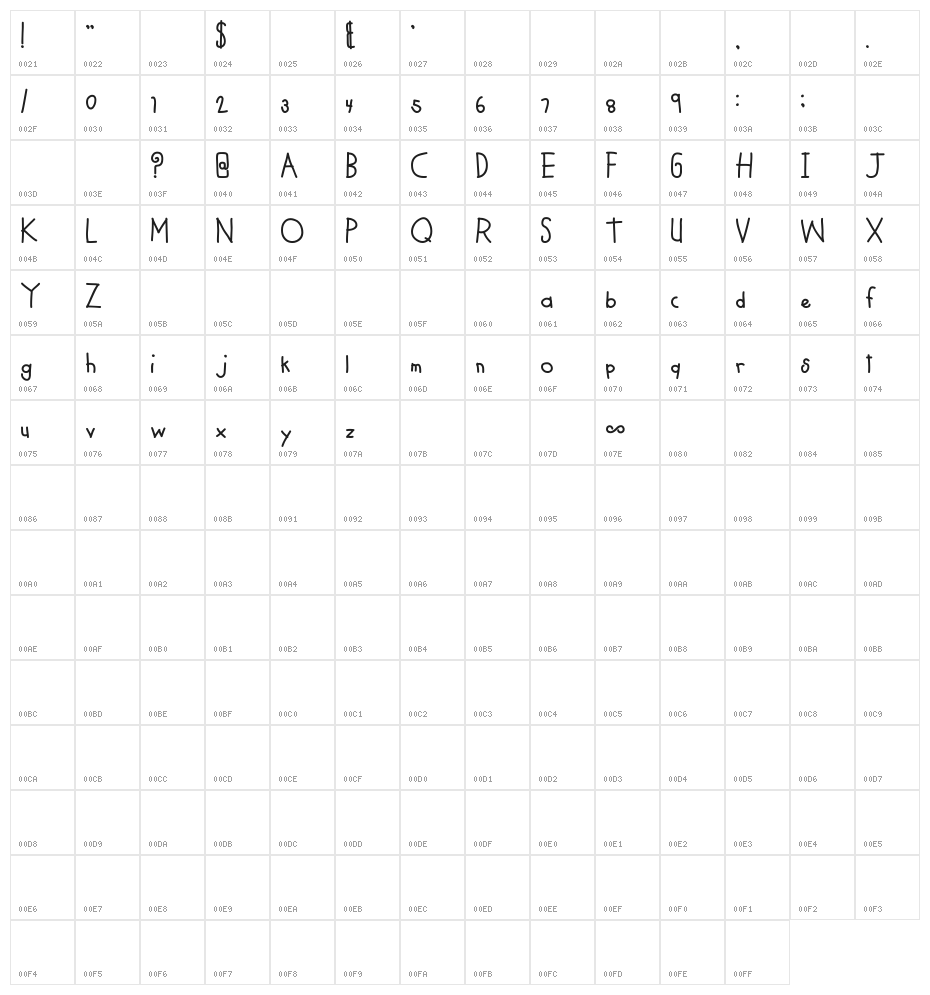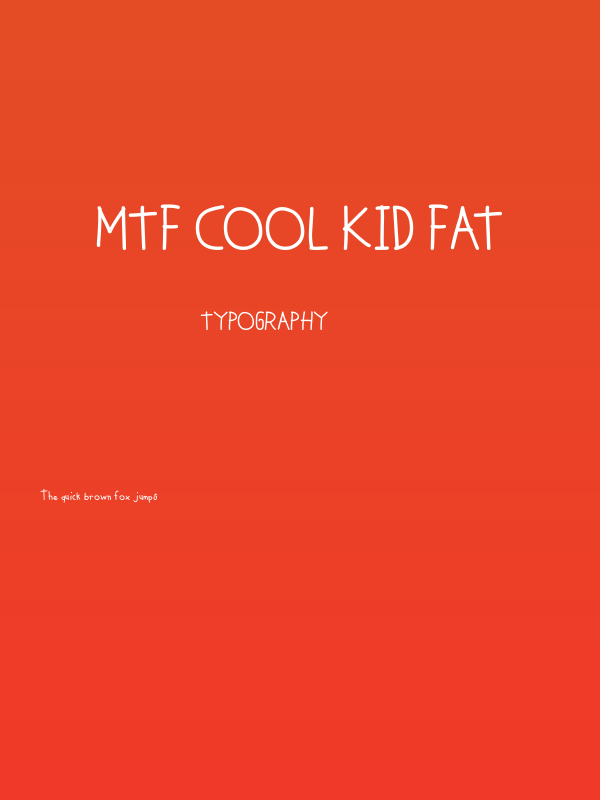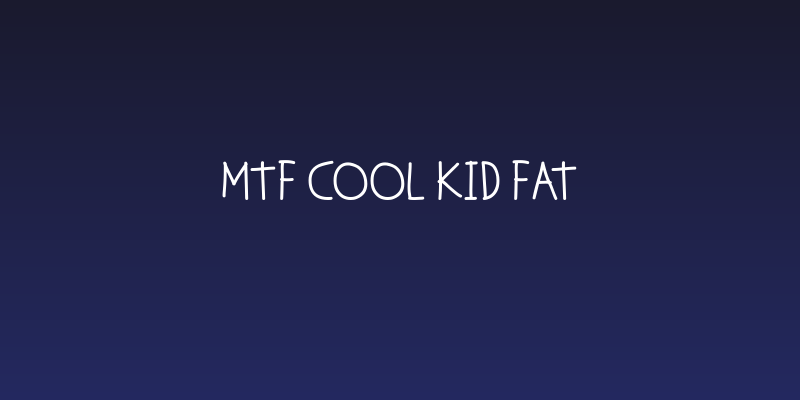
MTF Cool Kid Fat Font
MTF Cool Kid Fat Description
This playful and whimsical font features a hand-drawn aesthetic with rounded, slightly irregular shapes that give it a friendly and approachable feel. The uppercase letters are bold and prominent, while the lowercase letters maintain a consistent style with a slightly more compact form. Numbers and special characters follow the same playful design, making the font versatile for various creative projects. The strokes are consistent in thickness, providing a uniform appearance across all characters. This font is ideal for projects that require a fun and informal touch, such as children's books, playful branding, or casual invitations.
| Use Case | Headlines, Logos, Informal text |
| Proposed Projects | Children's books, playful branding, casual invitations, greeting cards. |